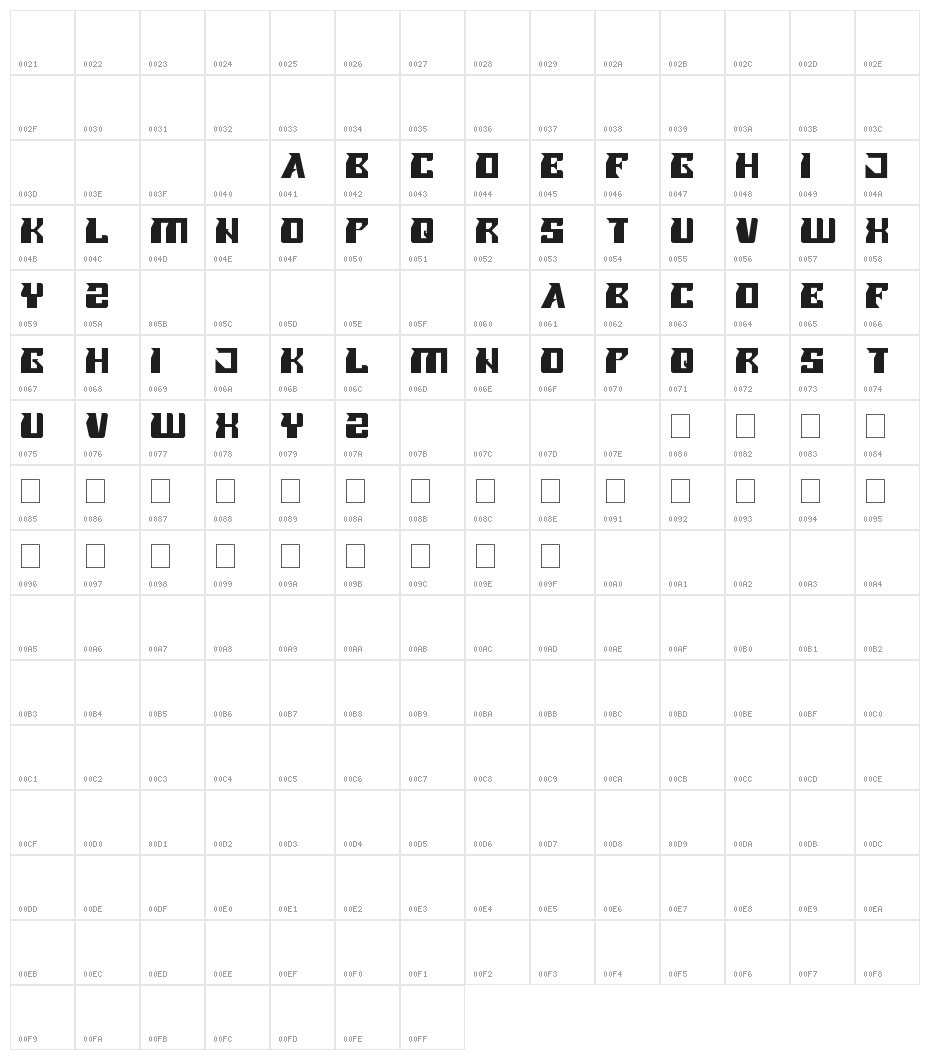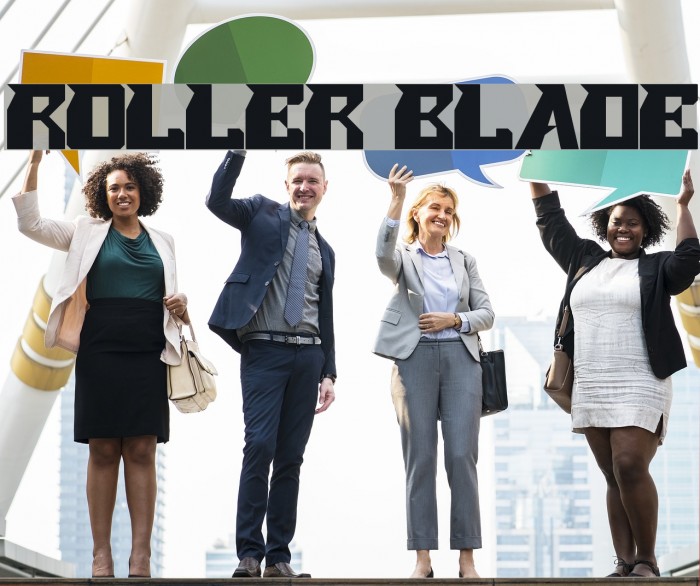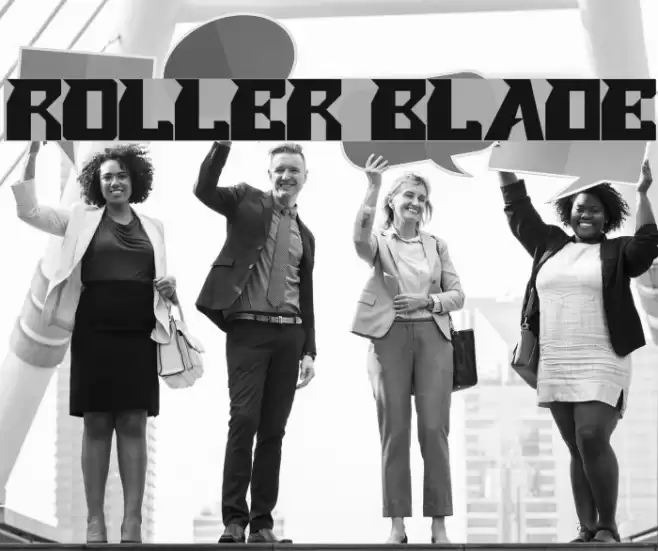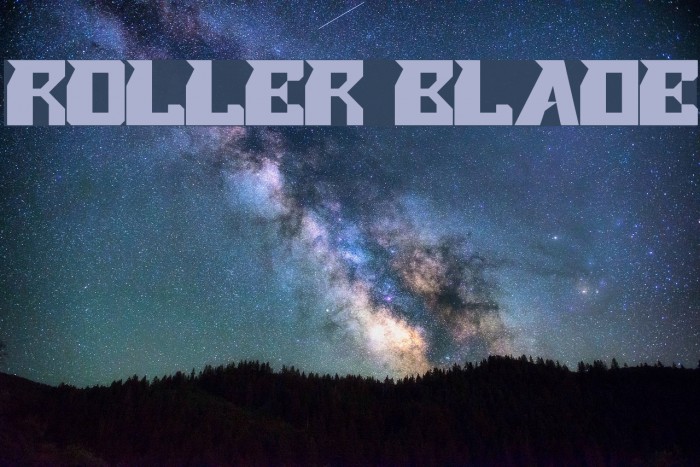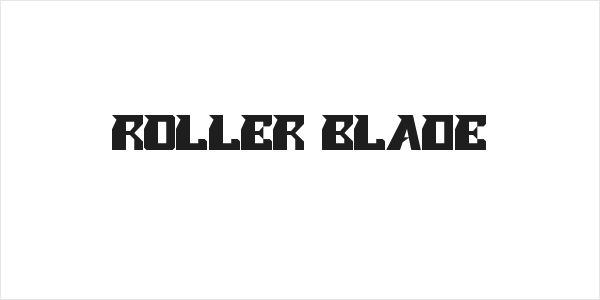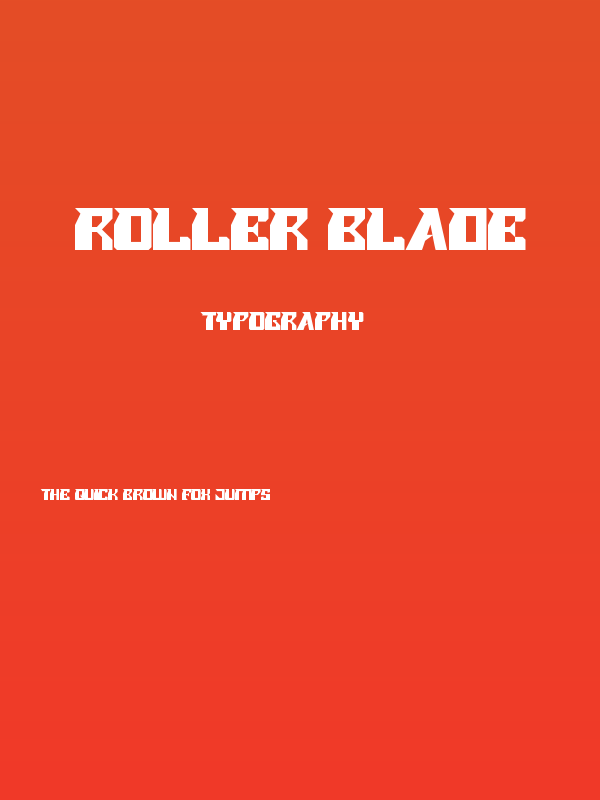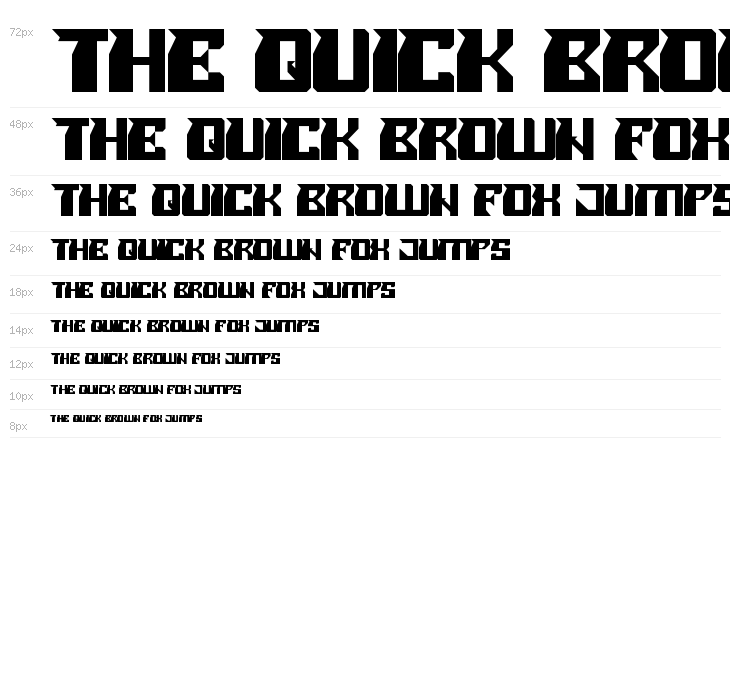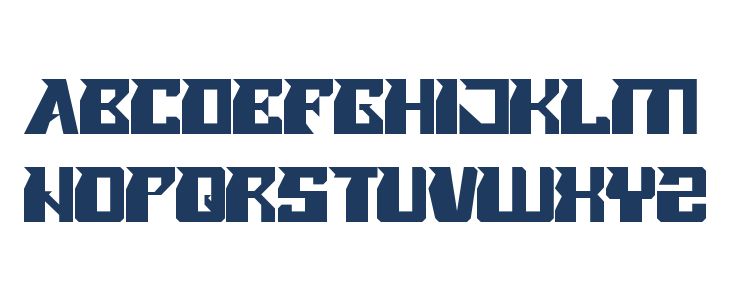
ROLLER BLADE Font
ROLLER BLADE Description
This font features a bold and geometric design with sharp angles and a blocky appearance. The characters are constructed with thick strokes and angular cuts, giving it a futuristic and industrial feel. The uppercase letters are particularly striking, with unique shapes that create a sense of movement and energy. The font's style is reminiscent of urban and street art, making it ideal for projects that require a modern and edgy look. Its strong presence and distinctive character shapes make it suitable for headlines, posters, and branding materials that aim to capture attention and convey a sense of boldness and innovation.
| Proposed Projects | Ideal for urban-themed posters, edgy branding, and futuristic designs. |